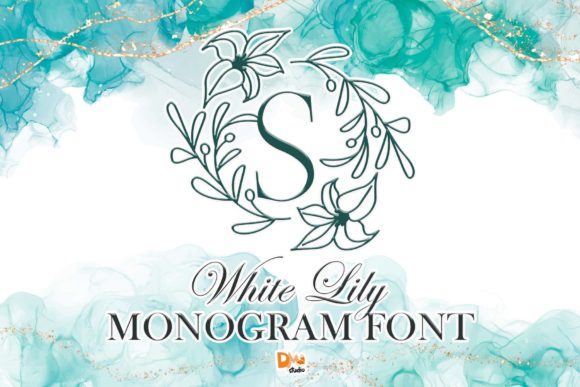
Unleash the charm of White Lily Monogram, a decorative font crafted to add a touch of elegance to your creative endeavors. Its delicate strokes and flowing curves evoke a sense of romance and timeless beauty, making it the perfect choice for expressing your heartfelt emotions in letters, invitations, and design projects. Step into a world of enchanting typography where your words come alive with grace and sophistication.
With White Lily Monogram, you can effortlessly create stunning monograms that reflect your personal style and add a touch of exclusivity to your projects. Whether it's a personalized gift, a wedding invitation that captures the essence of your love story, or a design that exudes elegance, this font will elevate your creations to new heights of beauty.
Imagine your love letters adorned with the delicate strokes of White Lily Monogram, conveying your heartfelt emotions in a way that words alone cannot express. The intricate details and flowing curves of this font will transform your messages into works of art, cherished by your loved ones for years to come.
Picture your wedding invitations, meticulously crafted with White Lily Monogram, setting the tone for a day filled with love and joy. The elegant curves and romantic aura of this font will create an unforgettable first impression, inviting your guests to celebrate this special occasion in style.
Step into the realm of graphic design with White Lily Monogram as your trusted companion. Create logos and branding that exude sophistication and charm, leaving a lasting impression on your audience. Let your designs tell a story of elegance and grace, attracting clients who appreciate the finer things in life.
With White Lily Monogram, you'll unlock a world of creative possibilities, transforming your ideas into stunning visual masterpieces. Experience the joy of creating designs that captivate and inspire, leaving an indelible mark on the hearts of your audience.